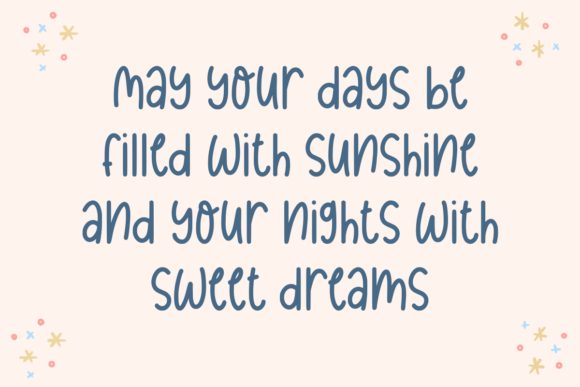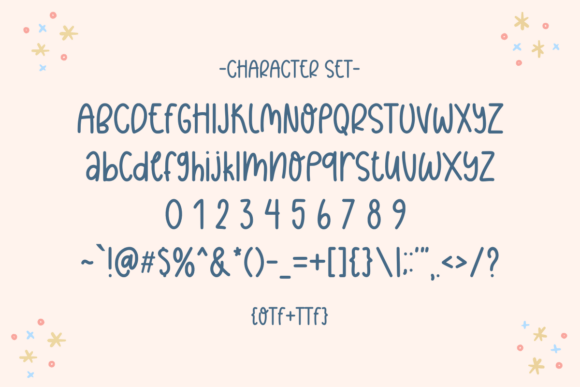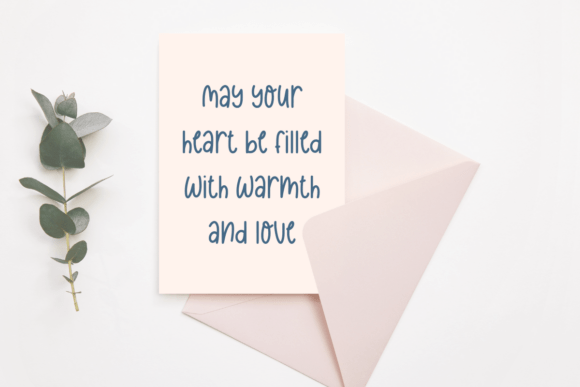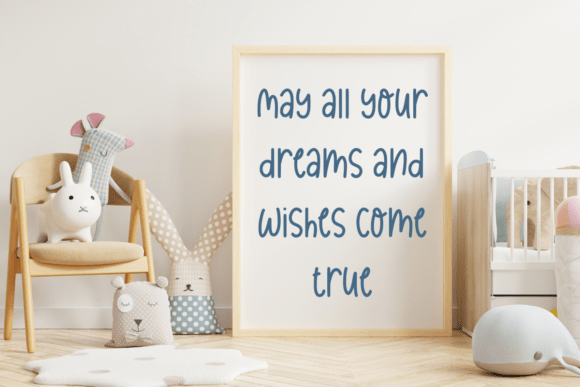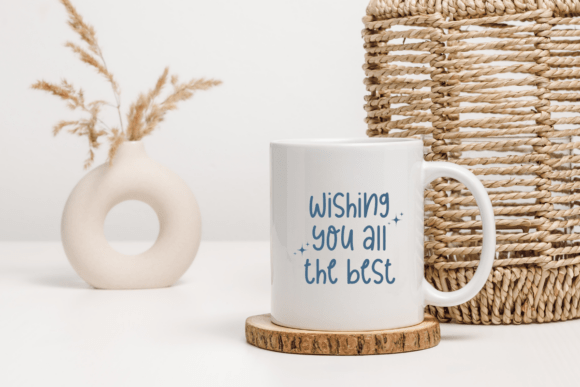
Introduction to Loving Wishes Font Font
Fonts play a crucial role in design, and the Loving Wishes Font font is a typeface that brings both character and versatility to any project. Whether you’re working on a branding project, a website, or a print design, the Loving Wishes Font font offers a unique style that can elevate your work.
Loving Wishes is a fun and playful handwritten font thatβs perfect for crafts, planners, KDP, stickers, greeting cards, and more.
With its cute and friendly style, it works great for Cricut, sublimation, and creative DIY projects Ideal for crafters, designers, and makers.
Key Features of Loving Wishes Font Font
Why Choose Loving Wishes Font Font?
The Loving Wishes Font font is more than just a typeface β it’s a design tool that helps you communicate your message with style and clarity. Its unique character set and versatile design make it suitable for a wide range of applications, from elegant invitations to bold headlines.
With its carefully crafted letterforms and balanced proportions, the Loving Wishes Font font ensures readability and visual appeal across all mediums.
What makes Loving Wishes Font font special?
The Loving Wishes Font font stands out with its unique design, exceptional readability, and versatility across various design applications.